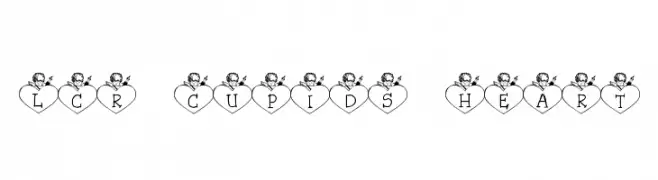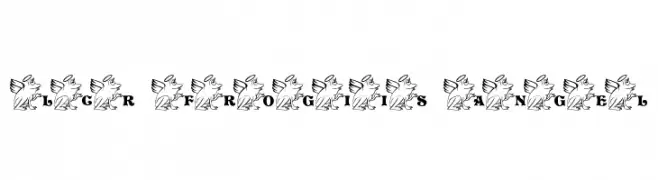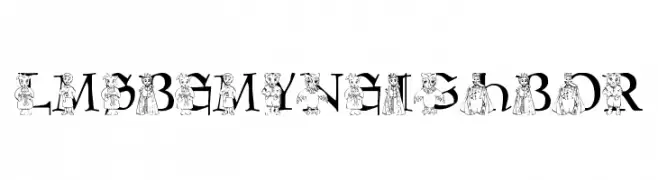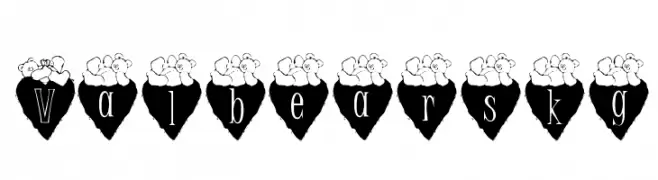
A fine, italic typewriter-style font with medium contrast and elegant slant.
A bold, geometric font with a futuristic and mysterious aesthetic.
A decorative font with letters growing from flower pots, ideal for playful and nature-themed designs.
A decorative font with cherubic illustrations integrated into each letter.
A playful, decorative font with characters encased in heart shapes topped with bears.
A playful font with chef-themed decorations on each character.
A decorative font with characters inside heart shapes topped by cupids.
A playful, decorative font featuring angelic frogs alongside bold characters.
A decorative font with characters accompanied by flag-waving illustrations.
A whimsical serif font with integrated character illustrations from a beloved children's show.